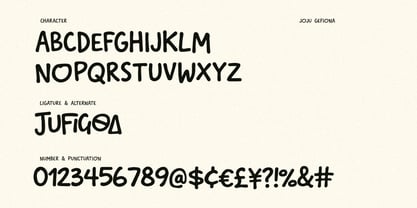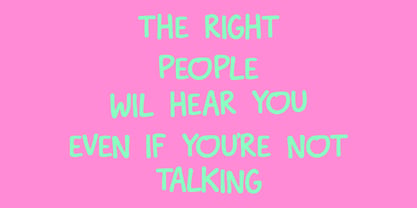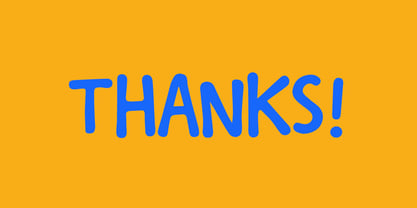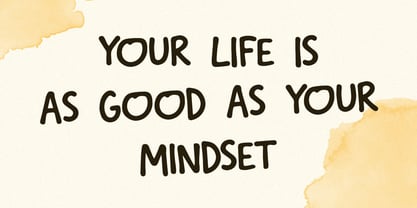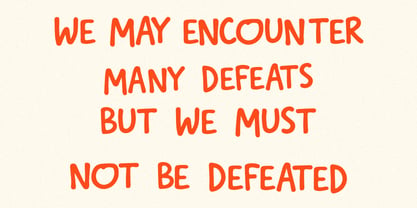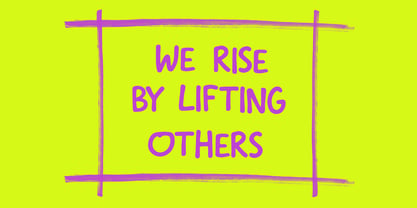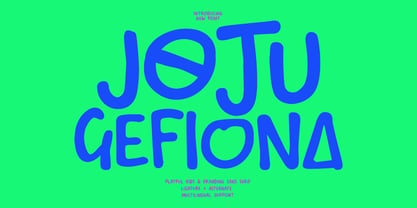
MC Joju Gefiona
by Maulana Creative
The MC Joju Gefiona Font Family was designed by Gilang Maulana and published by Maulana Creative. MC Joju Gefiona contains 1 styles. More about this family
Joju Gefiona is a vibrant, hand-drawn sans serif font designed to bring a sense of joy and whimsy to any creative project. Characterized by its soft, rounded edges and unique geometric alternates—like the triangular 'A' and circular 'O'—this typeface perfectly captures a childlike wonder. Whether you are designing eye-catching design, school supplies, fun branding, or social media quotes, Joju Gefiona offers a friendly and approachable aesthetic. It includes ligatures and multilingual support, making it a versatile choice for designers looking to add a "playful yet bold" to their work.
Designers: Gilang Maulana
Foundry: Maulana Creative